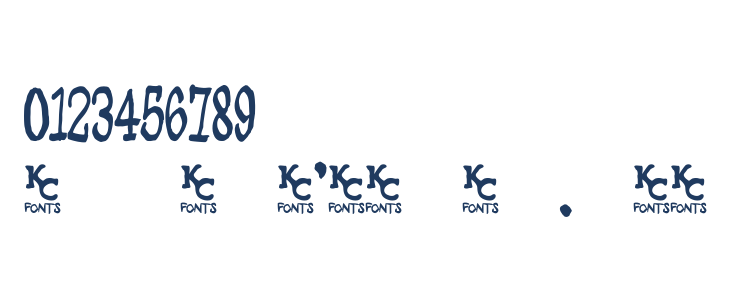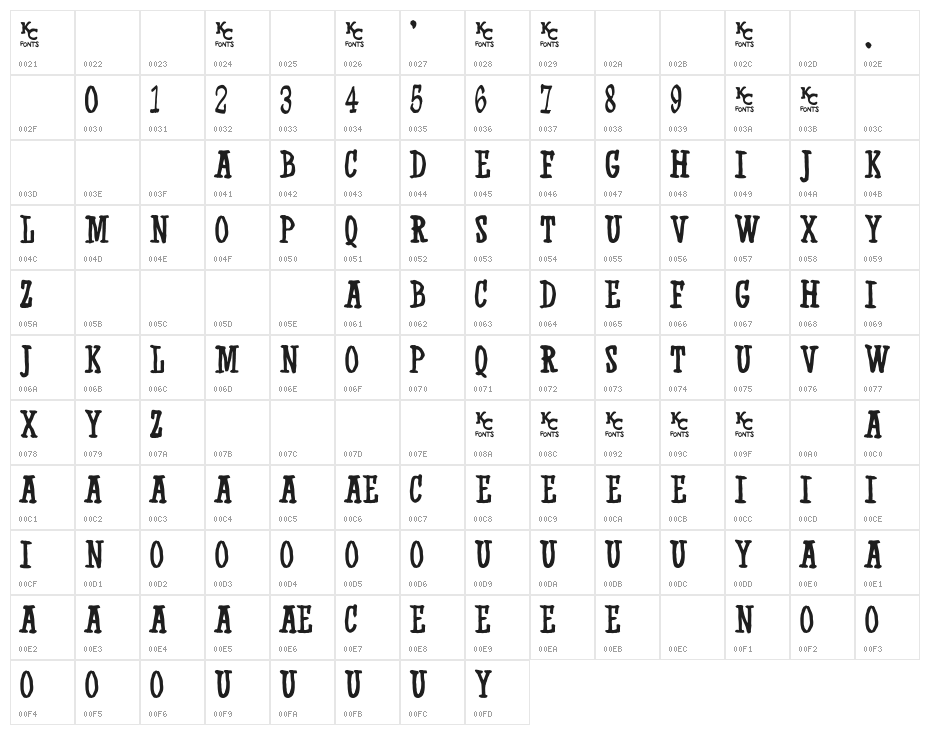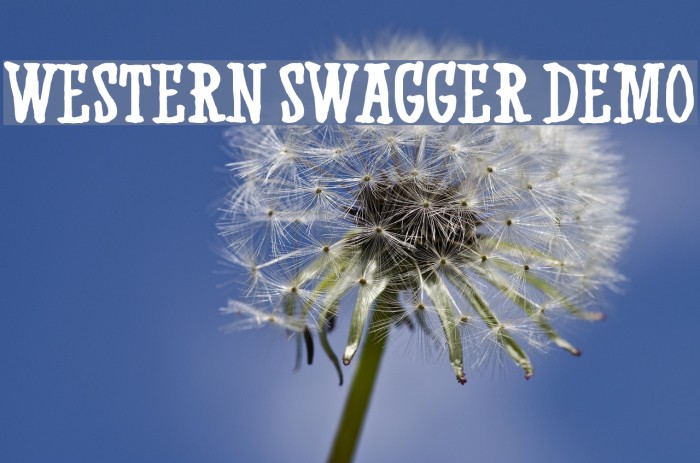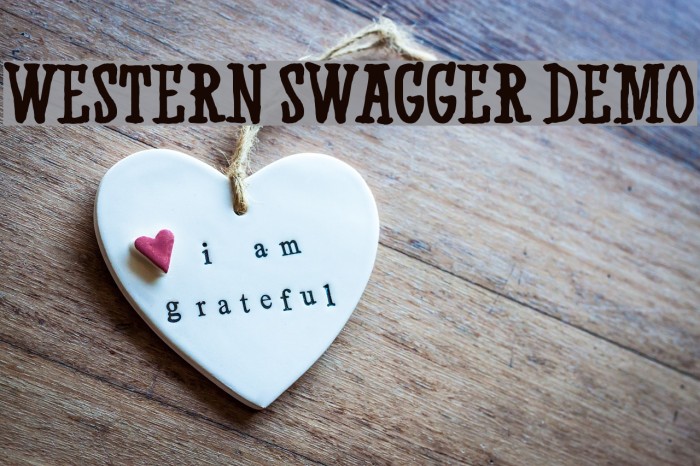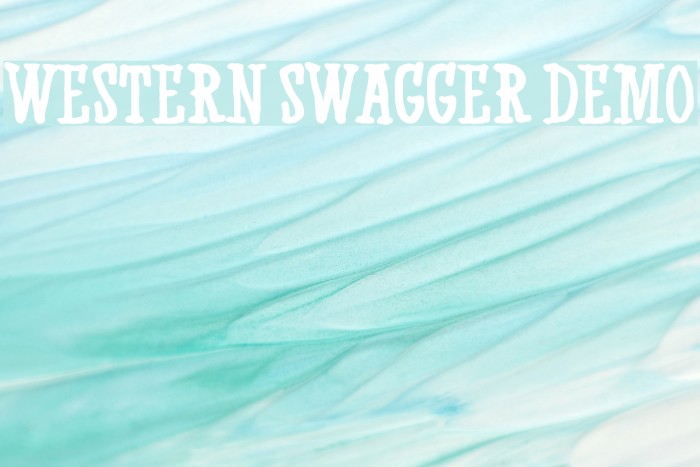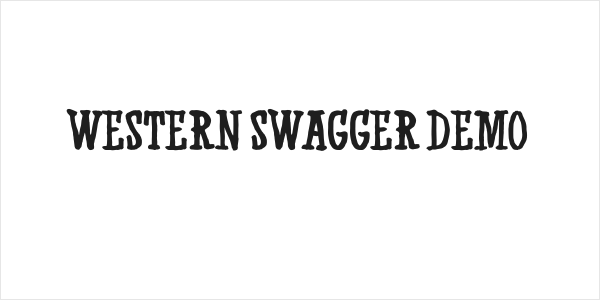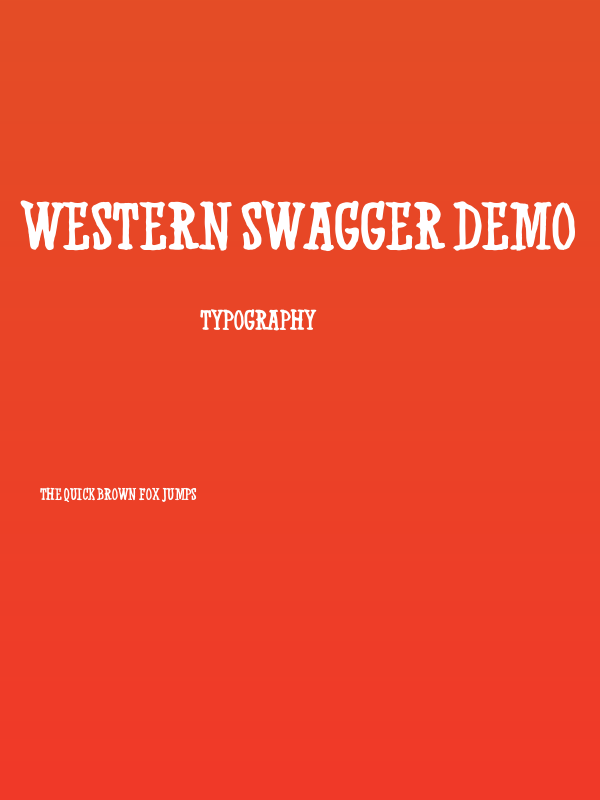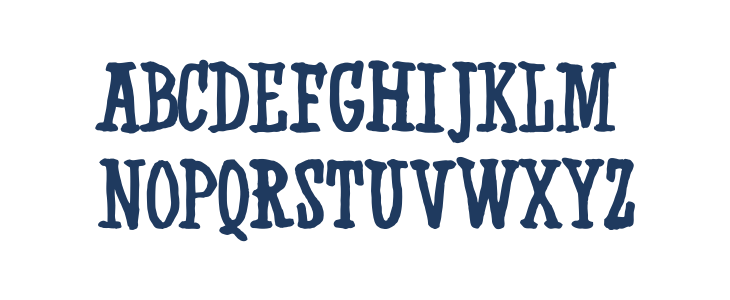
Western Swagger DEMO Font
Western Swagger DEMO Description
This font exudes a rugged, Western-inspired charm with its bold, decorative style. The characters are designed with a distinct flair, featuring uneven strokes and a slightly distressed appearance that adds to its rustic appeal. The uppercase letters are particularly striking, with exaggerated serifs and a hand-drawn quality that evokes a sense of adventure and nostalgia. The numbers and special characters maintain this theme, ensuring a cohesive look across all text elements. This font is perfect for projects that require a touch of the Wild West or a vintage, handcrafted aesthetic.
| Proposed Projects | Ideal for posters, branding, signage, and any design needing a vintage Western flair. |